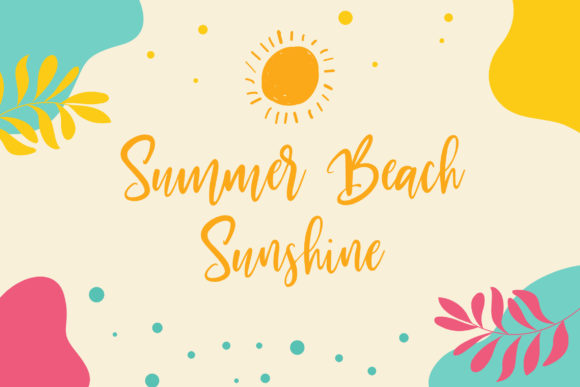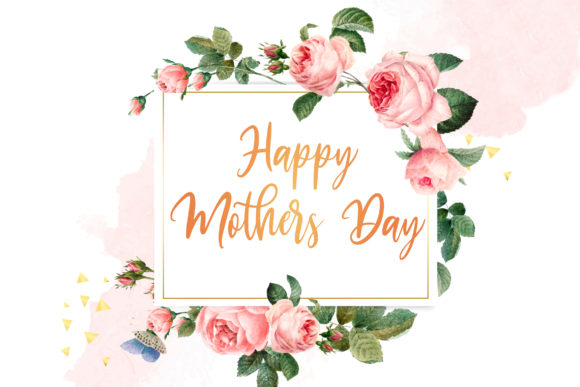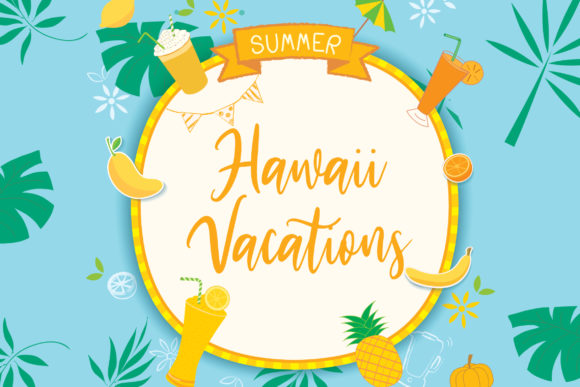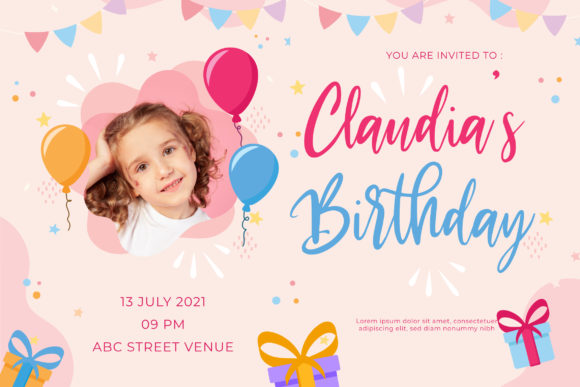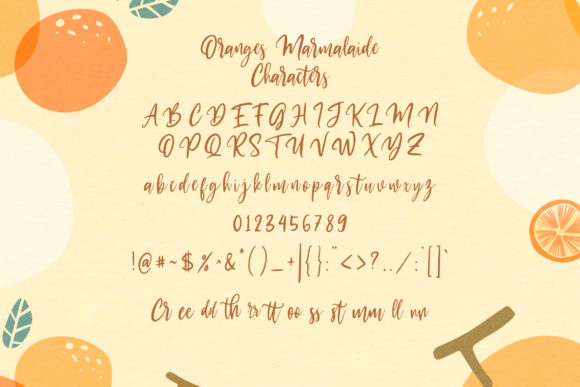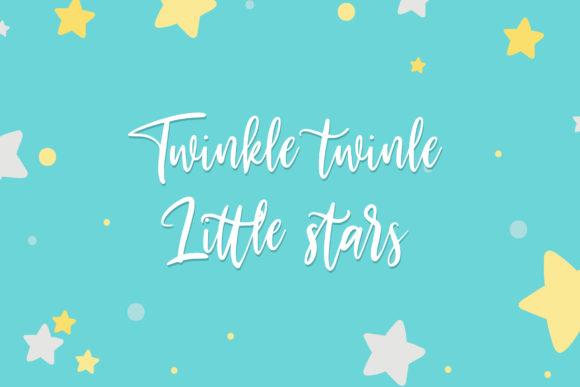
Introduction to Oranges Marmalaide Font
Oranges Marmalaide is a lovely and timeless handwritten font.
Key Features of Oranges Marmalaide Font
Why Choose Oranges Marmalaide Font?
Oranges Marmalaide Font offers exceptional quality and versatility, making it a valuable addition to your design toolkit. Whether you’re creating for personal projects or commercial use, Oranges Marmalaide Font delivers professional results.